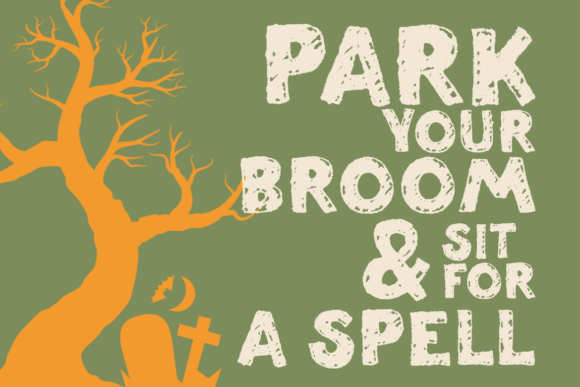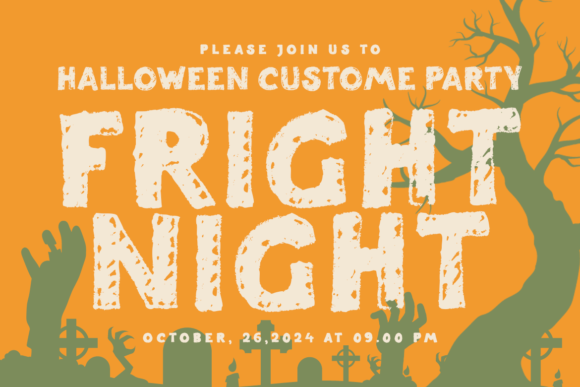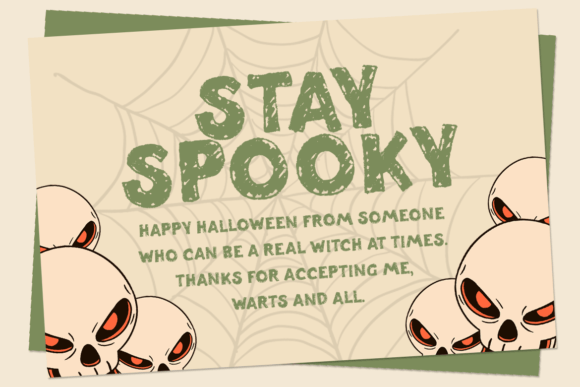
Introduction to Freaky Witches Font
Freaky Witches is an incredibly unique and interesting display font.
Spooky and a bit creepy, this font will make each of your designs stand out .
Key Features of Freaky Witches Font
Why Choose Freaky Witches Font?
Freaky Witches Font offers exceptional quality and versatility, making it a valuable addition to your design toolkit. Whether you’re creating for personal projects or commercial use, Freaky Witches Font delivers professional results.